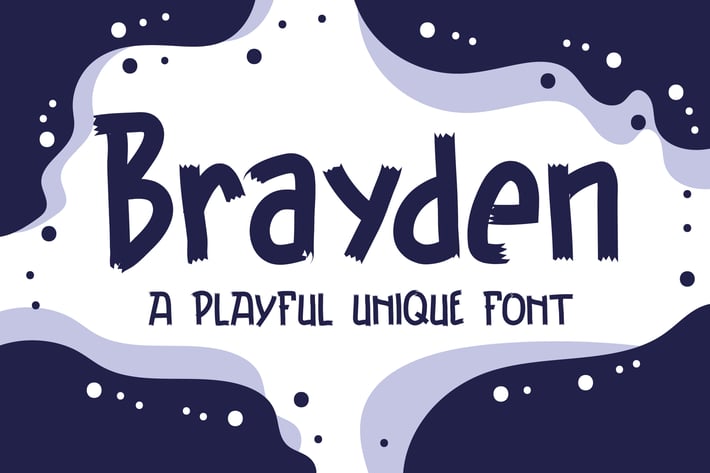
Brayden Typeface - A Playful Unique Font
So beautiful on invitation like greeting cards, branding materials, business cards, quotes, posters, and more!